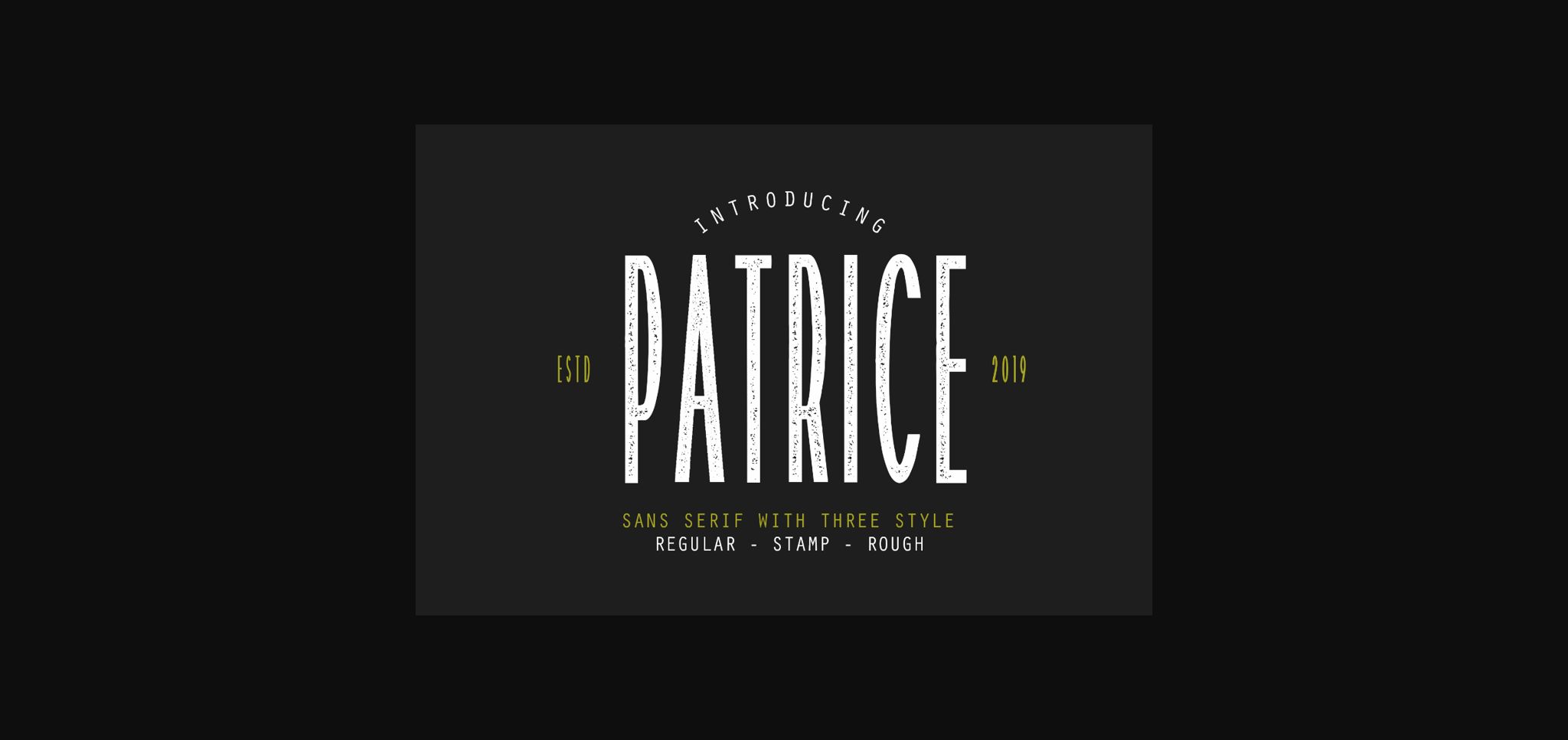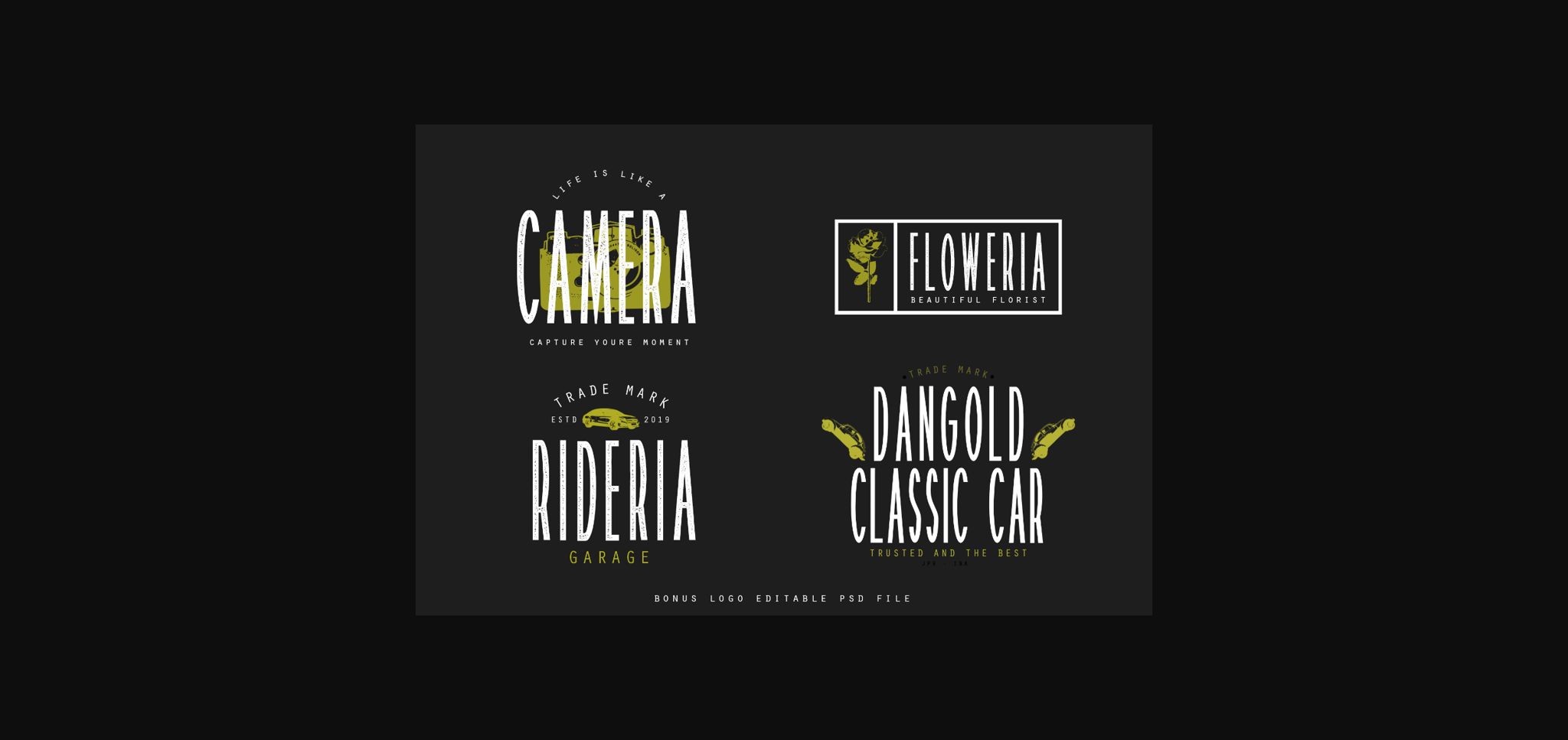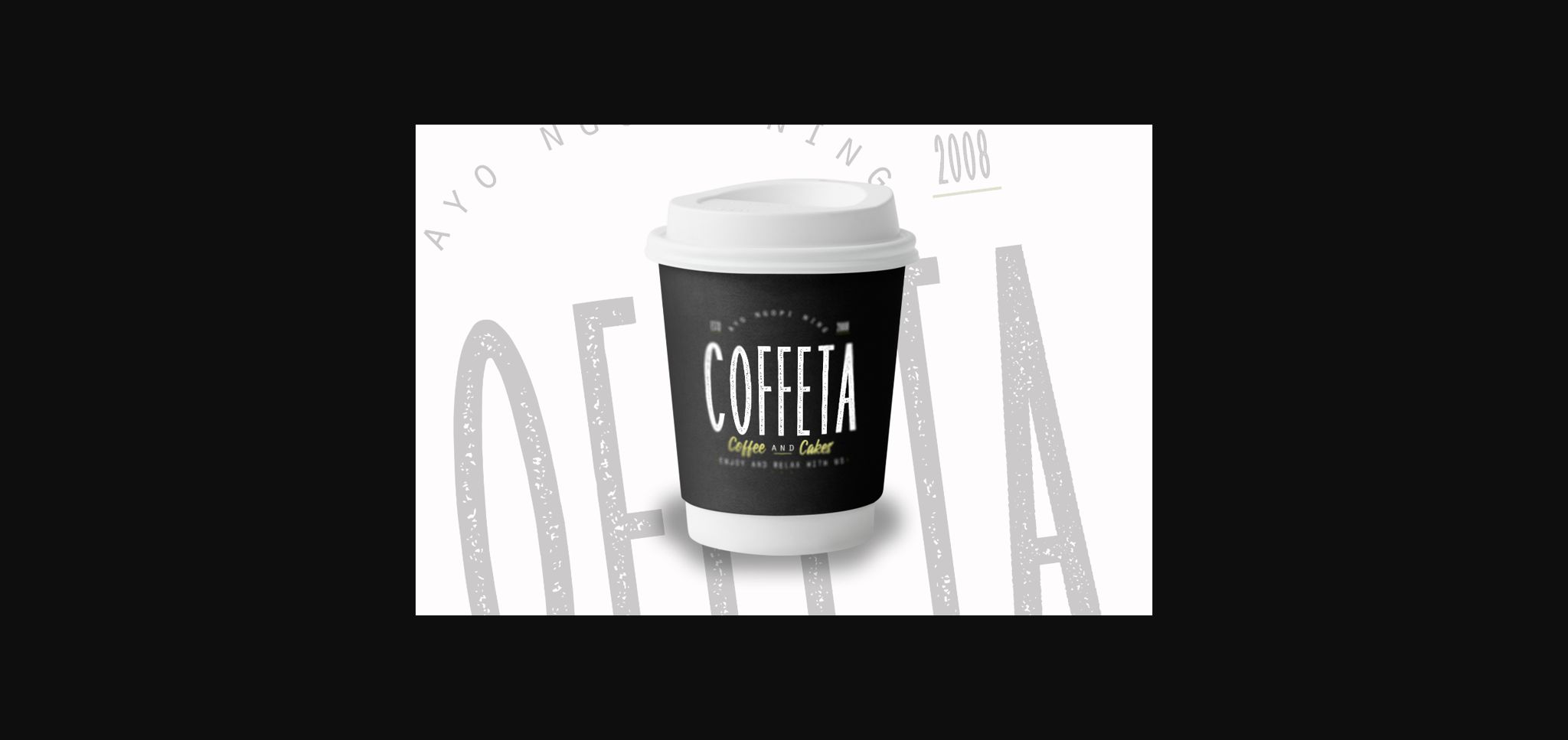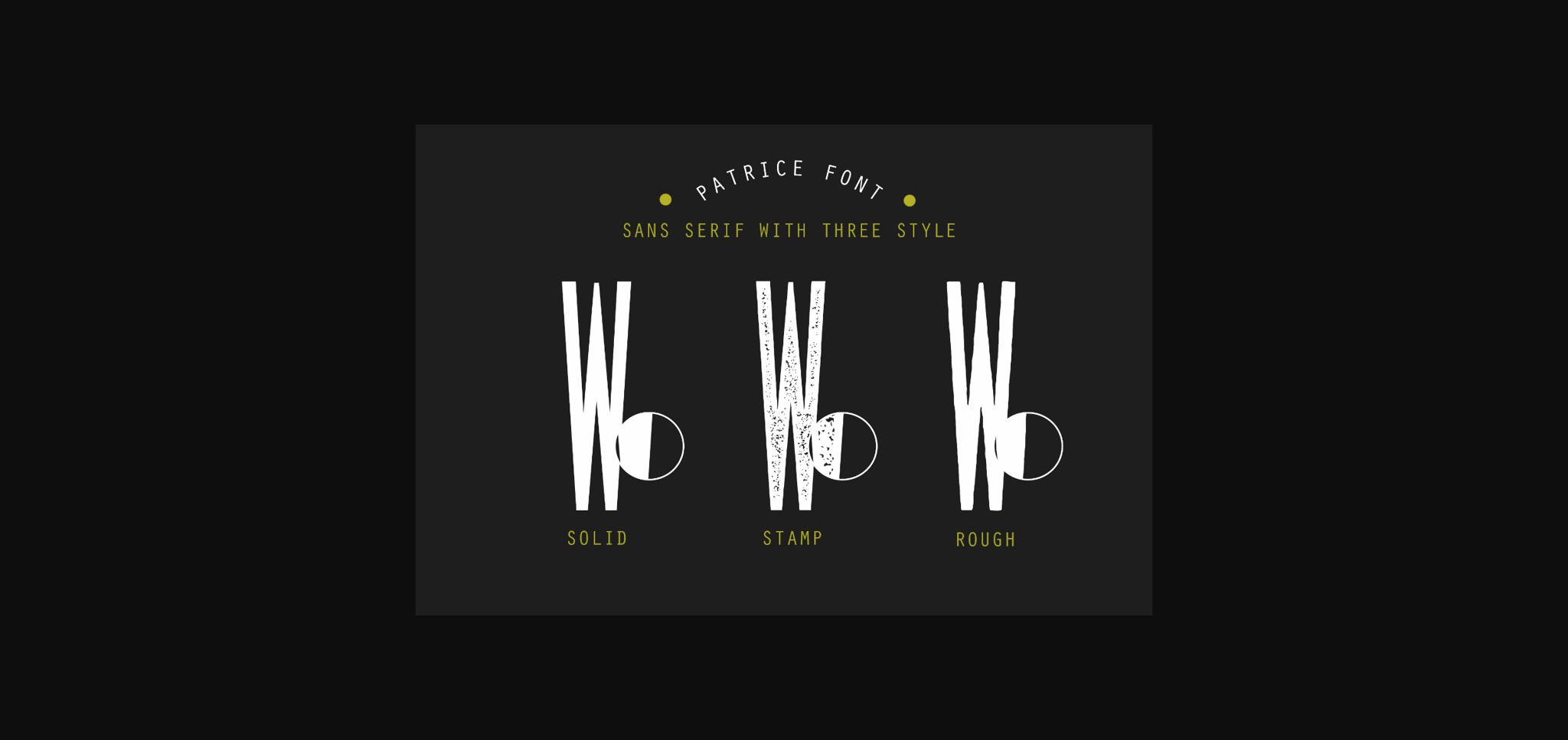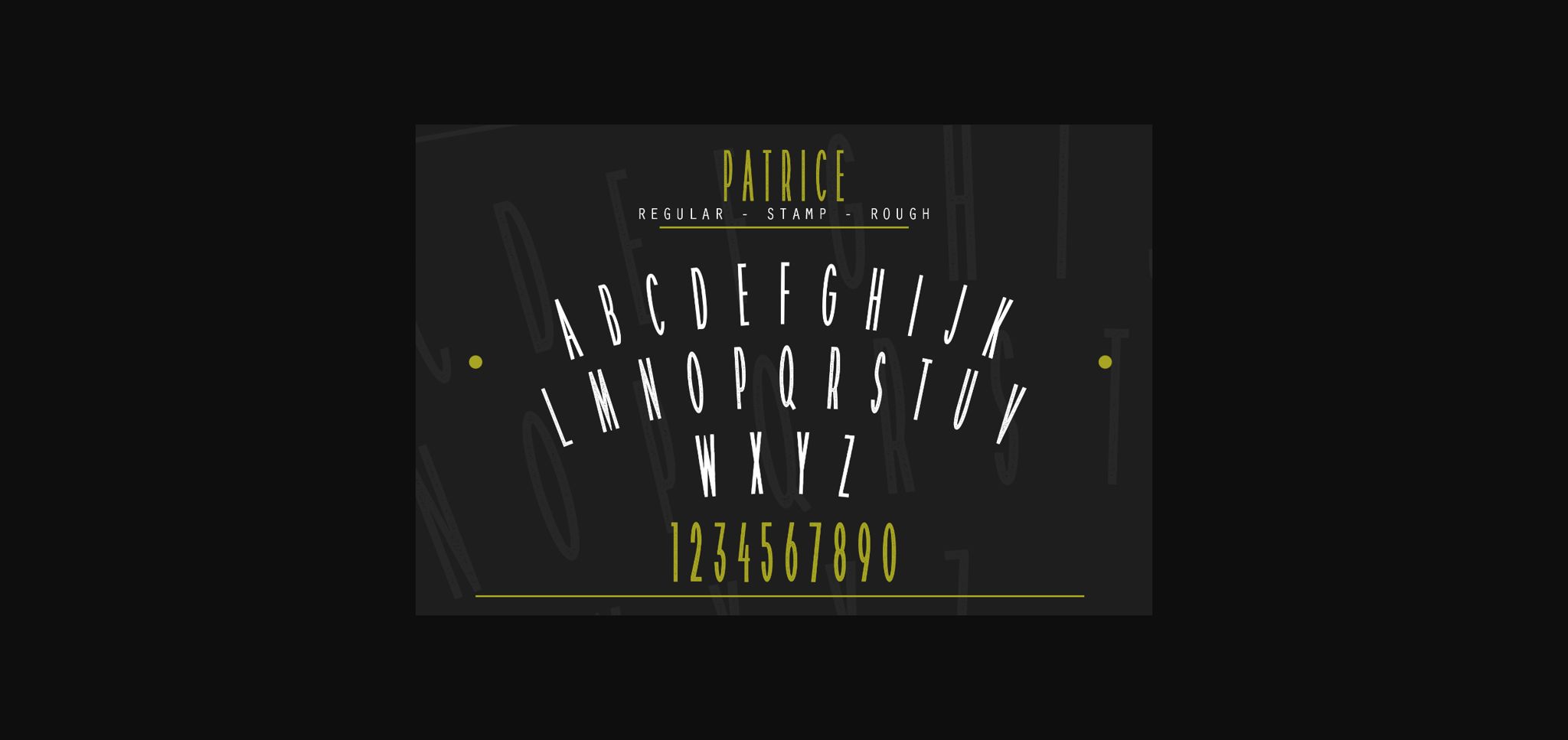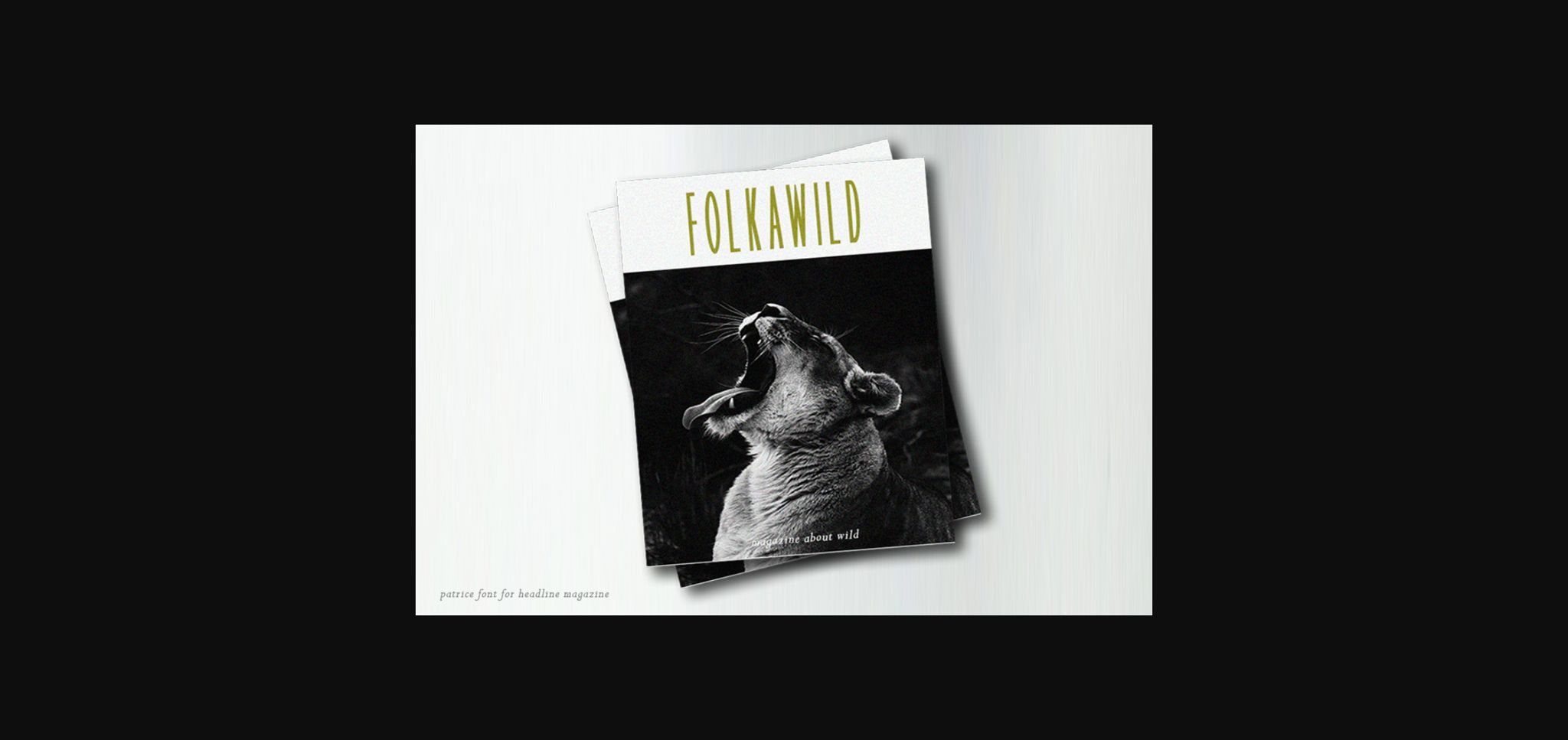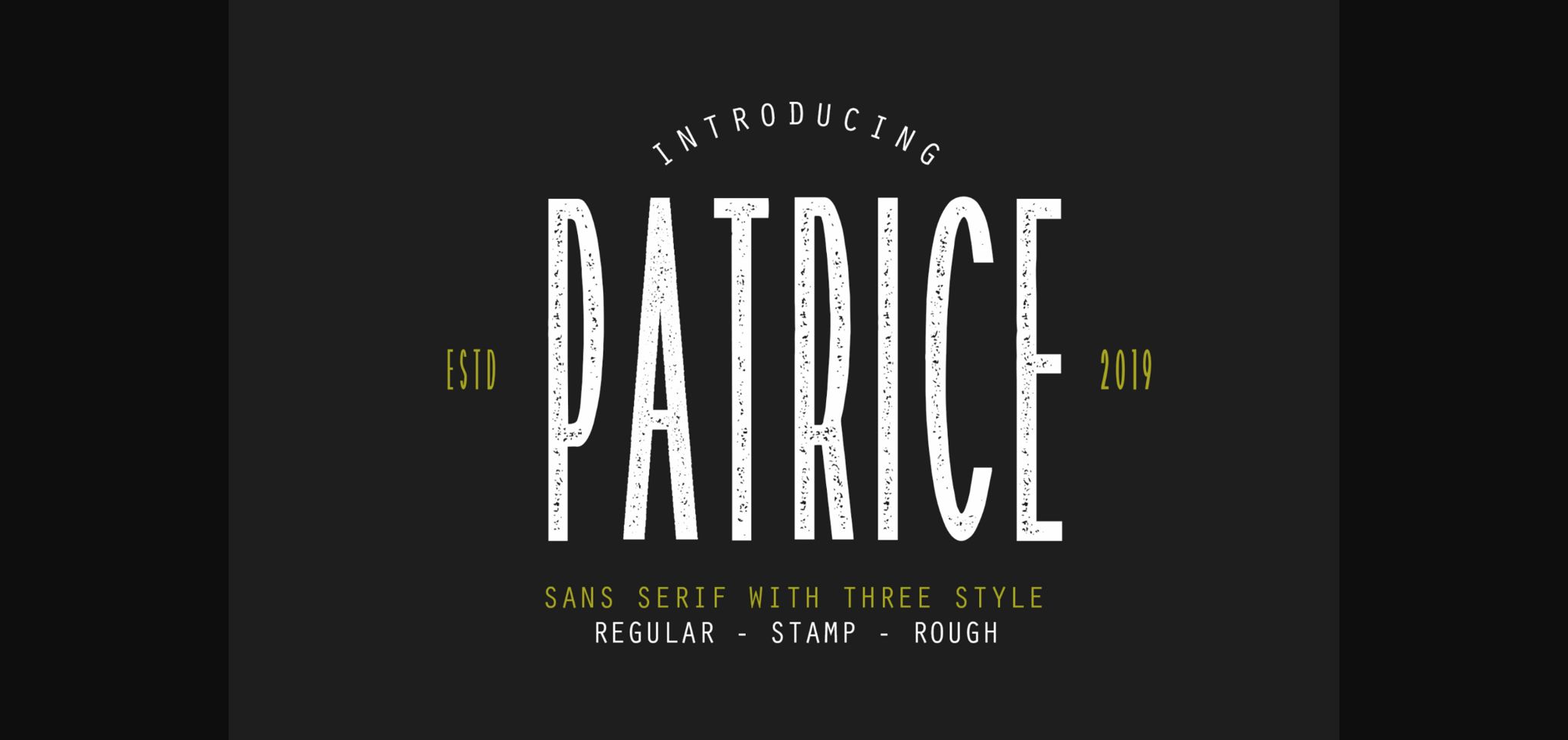
Patrice feels playfully nostalgic and delivers an incredible vintage aesthetic. Use this sans serif font to add that special retro touch to any design idea you can think of!